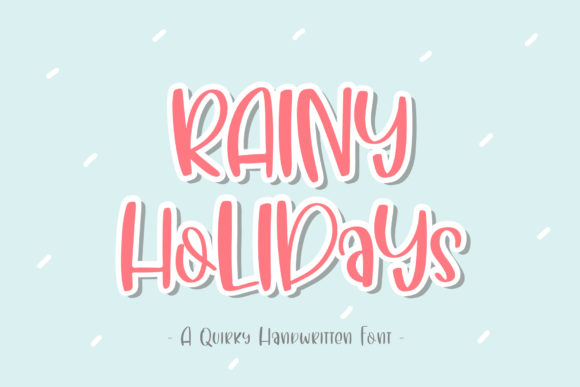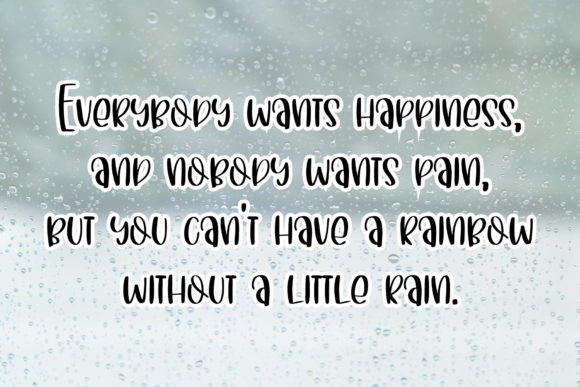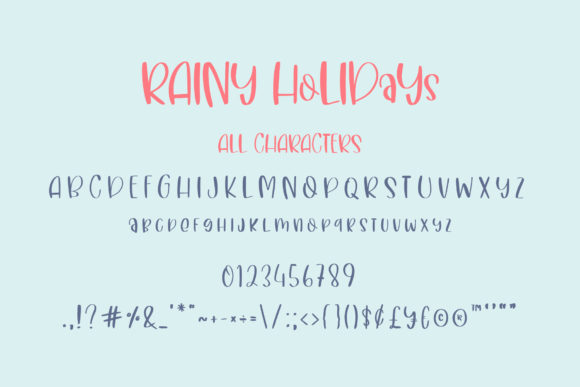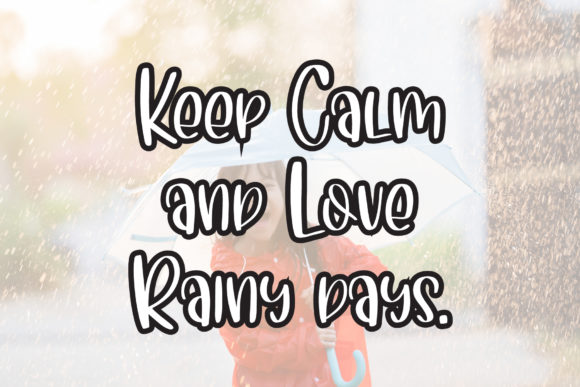
About Rainy Holidays Font
Rainy Holidays is a whimsical and sweet handwritten font, It will look great in logos, cards, wedding invitations, social media posts and much more!